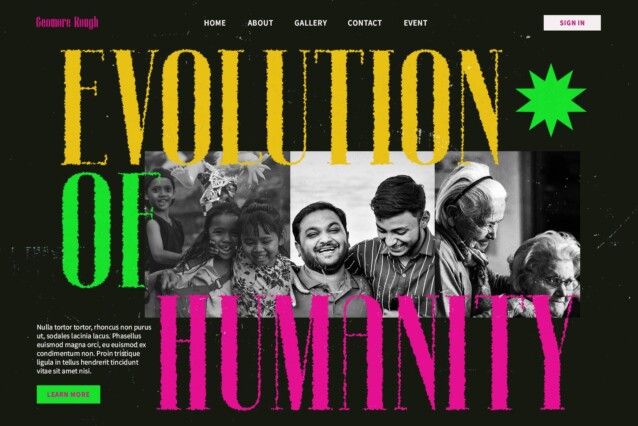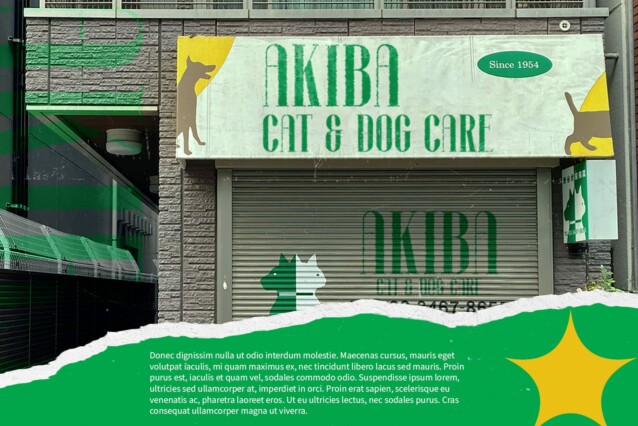
Geomore Rough Font
Geomore Rough Font is a condensed serif font with a rough vibe, perfect for adding character and charm to your designs. Its unique design is ideal for headlines, posters, and other display purposes where you want to make a bold statement.
Efficient Space Utilization
With its condensed form, Geomore Rough maximizes space efficiency without compromising on readability. This makes it perfect for situations where space is limited, such as banners and headers.